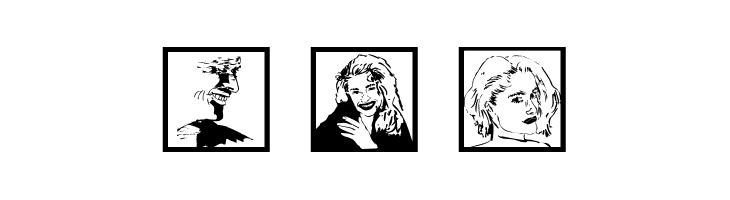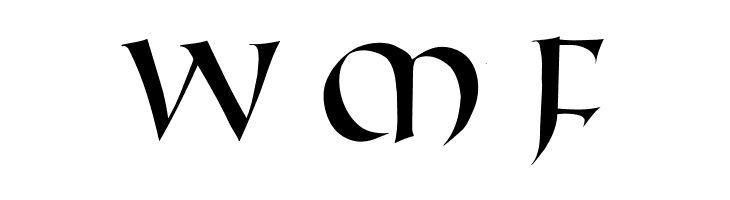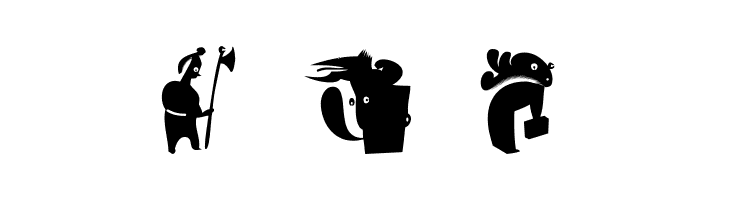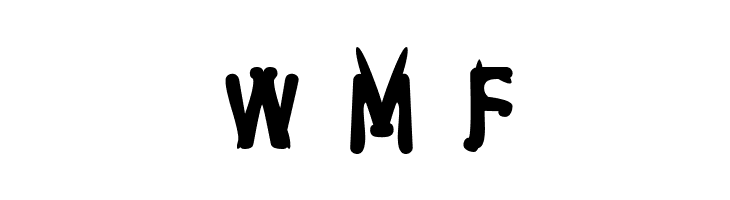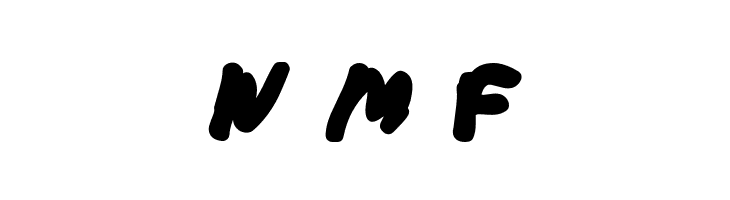
A modern serif font with bold, structured forms and slightly curved serifs.
A modern, sleek font with sharp angles and smooth curves.
A clean, modern typeface with elegant proportions and balanced strokes.
A playful, bold handwritten font with a lively and dynamic style.
A bold, playful font with thick, rounded strokes and a hand-drawn feel.
Illustrative display font using human figures as glyphs.
A playful, handwritten font with rounded, consistent strokes and a casual feel.
A playful and decorative font featuring dinosaur-like creatures as characters.
A decorative, creature-themed display font with bold, illustrative glyphs.
A historical and classical font with sharp, angular strokes and distinct serifs.